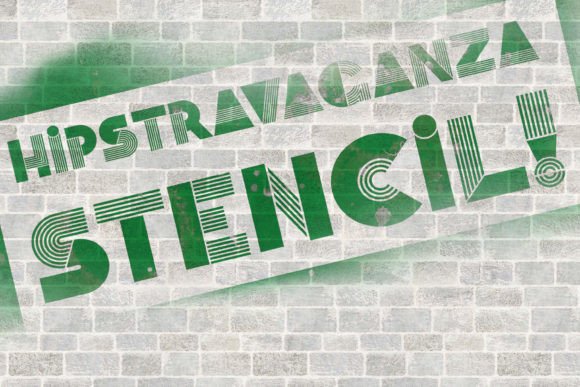
Journey into a realm of visual allure with Hipstravaganza Stencil, a font that embodies the flamboyant spirit of retro aesthetics. Its audacious strokes, a symphony of blocks and parallel lines, ignite a visual spectacle that commands attention. Immerse yourself in the era of bold statements and artistic flair as you witness the transformative power of this decorative masterpiece.
Unleash your creativity and let Hipstravaganza Stencil ignite a visual revolution in your designs. Its intricate details and captivating rhythm make it the perfect centerpiece for posters, demanding attention like a magnetic force. As a foreground element gracing your photographs, it adds a layer of depth and intrigue, inviting viewers to delve deeper into the narrative you weave.
Experience the captivating allure of Hipstravaganza Stencil as it captivates your audience with its mesmerizing presence. Let your message reverberate with a boldness that cannot be ignored, a testament to the enduring power of artistic expression. Embrace the allure of this font and watch as your creative visions flourish, captivating hearts and minds alike.
Prepare to be mesmerized as Hipstravaganza Stencil weaves its visual magic. Its meticulously crafted characters, each a testament to the artistry of Tudor's Type, dance across the screen, leaving a trail of visual enchantment. Allow this font to ignite your imagination and transport you to a world where creativity knows no bounds.